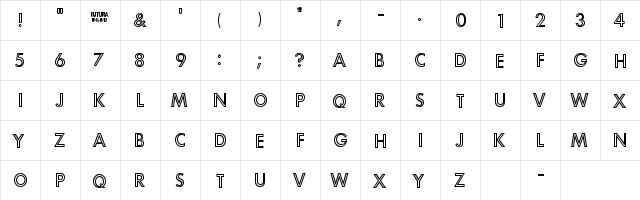
DXS Futura Inline Regular
Design Context for DXS Futura Inline Typeface
DXS Futura Inline channels digital-age aesthetics through its sharp, structured letterforms — ideal for brands that want to signal innovation.